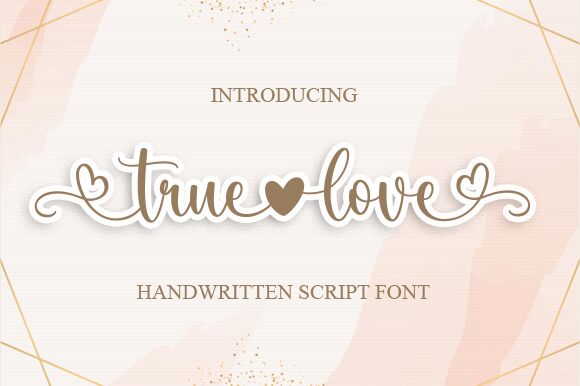
True Love
True Love, a lovely handwritten font by Graphix Line Studio, is perfect for projects that require a touch of romance and whimsy. With its delicate curves and playful swashes, this semi-bold typeface brings a charming personality to invitations, greeting cards, and other stationery. Its narrow width also makes it ideal for headlines on websites or social media graphics. Whether creating wedding invitations or adding a personal touch to branding materials, True Love is sure to steal hearts with its enchanting style.